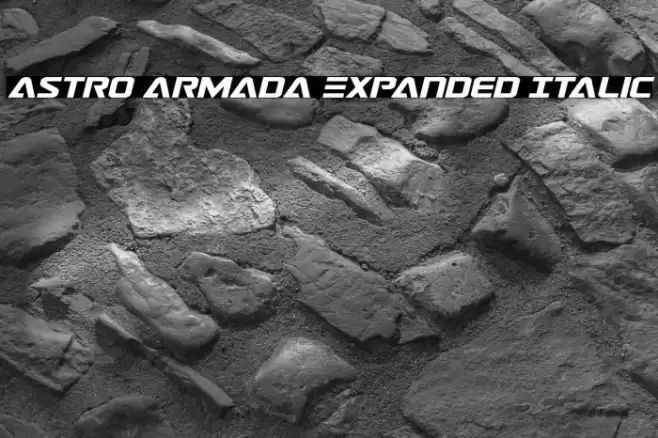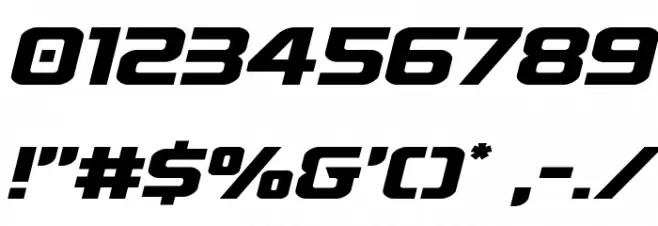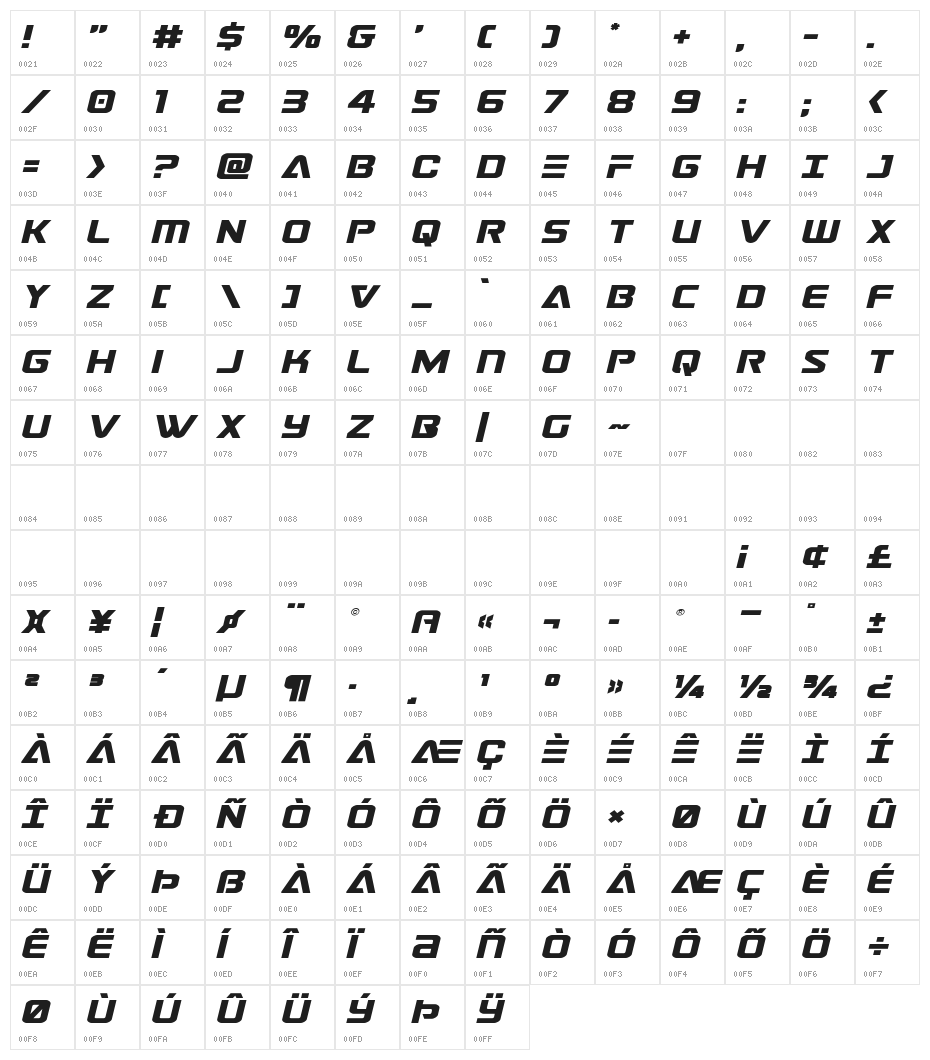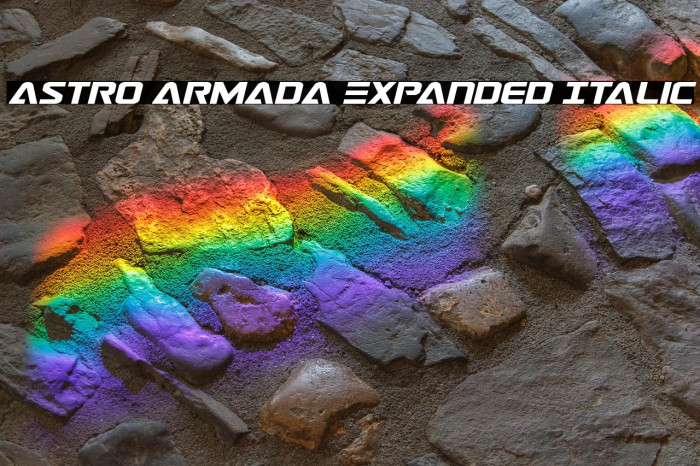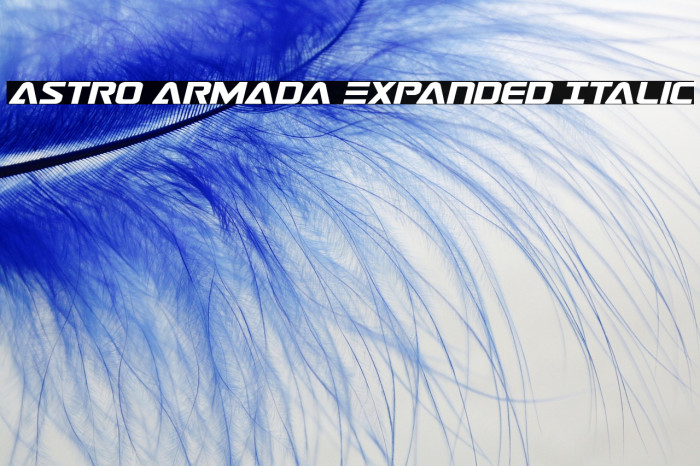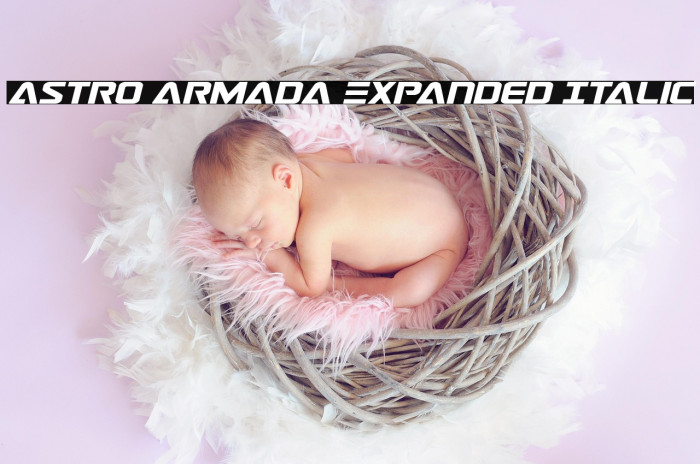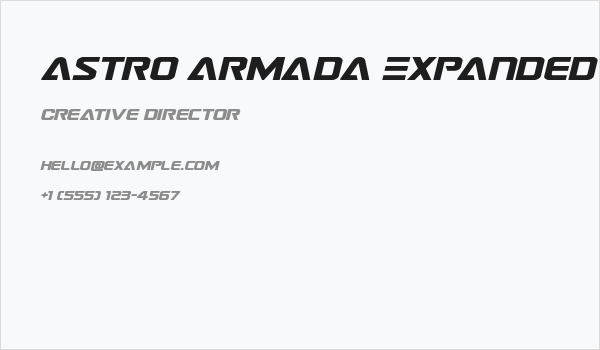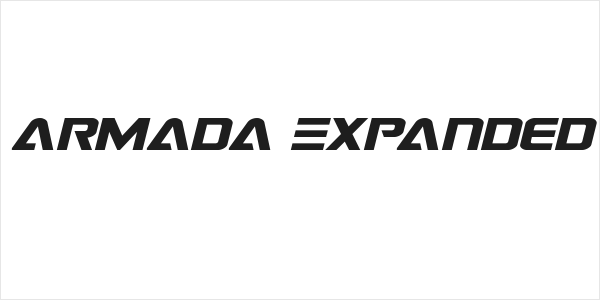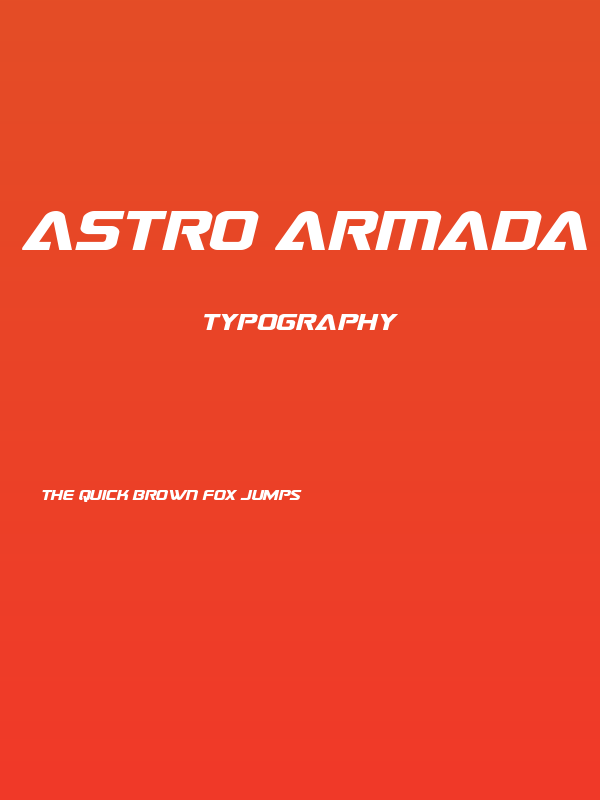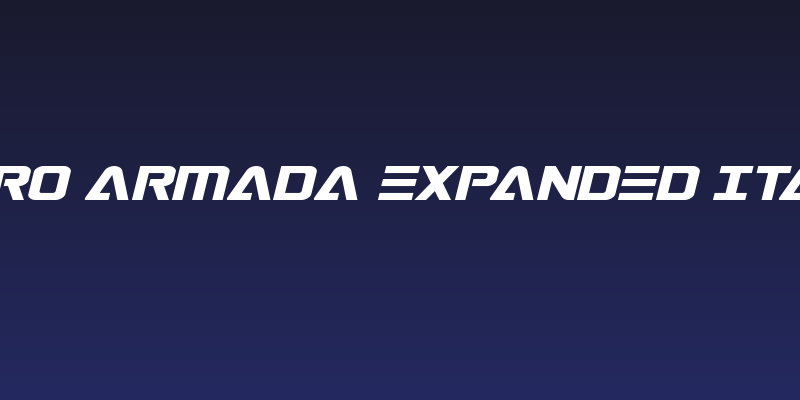
Astro Armada Expanded Italic Font
Astro Armada Expanded Italic Description
This font features a futuristic and dynamic design with an italicized slant, giving it a sense of motion and speed. The characters are bold and expanded, providing a strong visual impact. The geometric shapes and sharp angles contribute to its modern and technological appearance. The uppercase letters are particularly striking, with consistent stroke widths that enhance readability. The numerals and special characters maintain the same stylistic approach, ensuring uniformity across all glyphs. This font is ideal for projects that require a bold and contemporary aesthetic.
A bold, expanded italic font with a futuristic and dynamic design from Uncategorized fonts.
- Proposed Projects: Ideal for sci-fi themed designs, technology branding, video game titles, and futuristic posters.